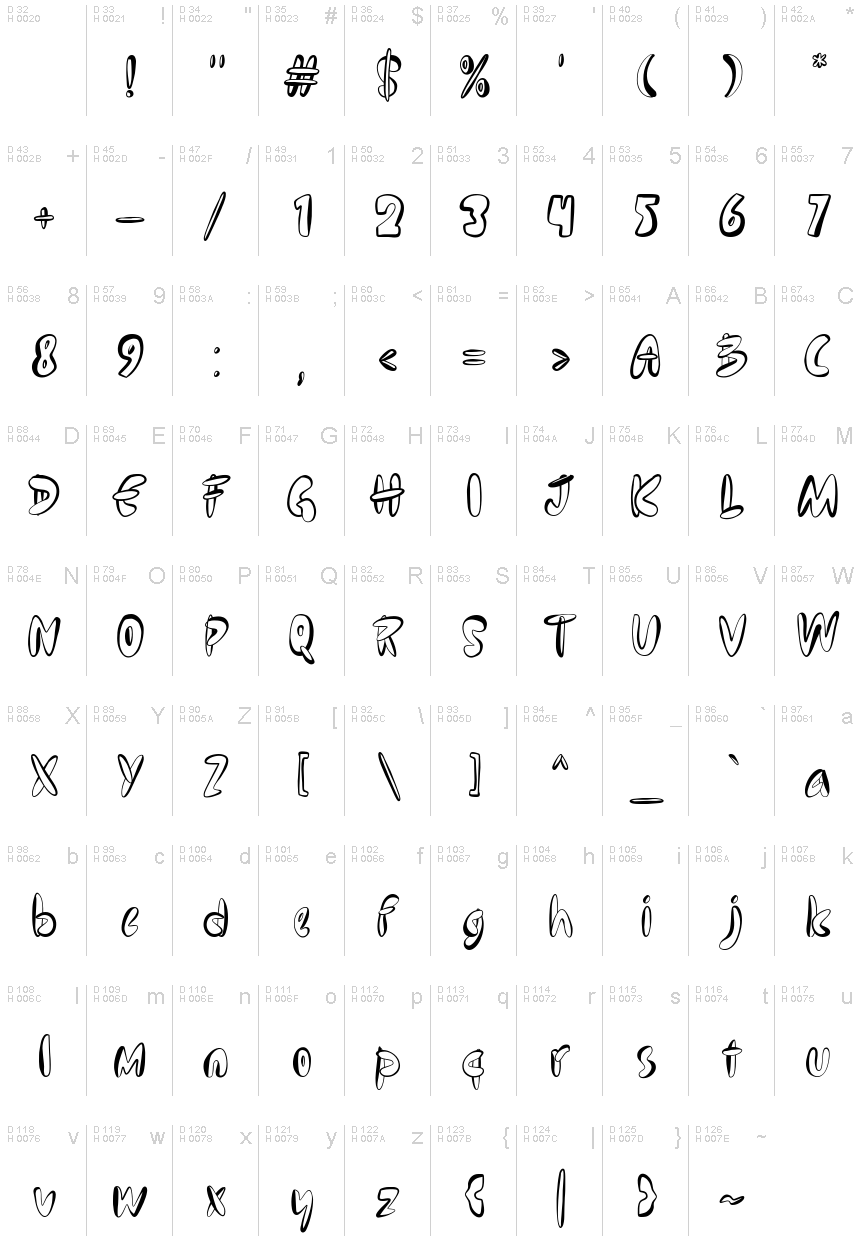
Noe Land - Demo Outline
Noe Land Outline, a striking creation from Tera Asset Garage, stands out as a bold display font with a groovy and outlined style. This font's unique characteristics lie in its playful curves and hollow interiors, exuding a retro yet contemporary charm. Its exaggerated weight gives it immense visual presence, capturing attention effortlessly.
Perfect for headlines, posters, and any design requiring an eye-catching element, Noe Land Outline brings an element of fun and creativity to your projects. Whether you're designing for the fashion industry or creating vibrant promotional materials, this font is sure to add a memorable touch to your work. Embrace Noe Land Outline for its distinctive style and dynamic appeal that make every letter a statement of creative flair.